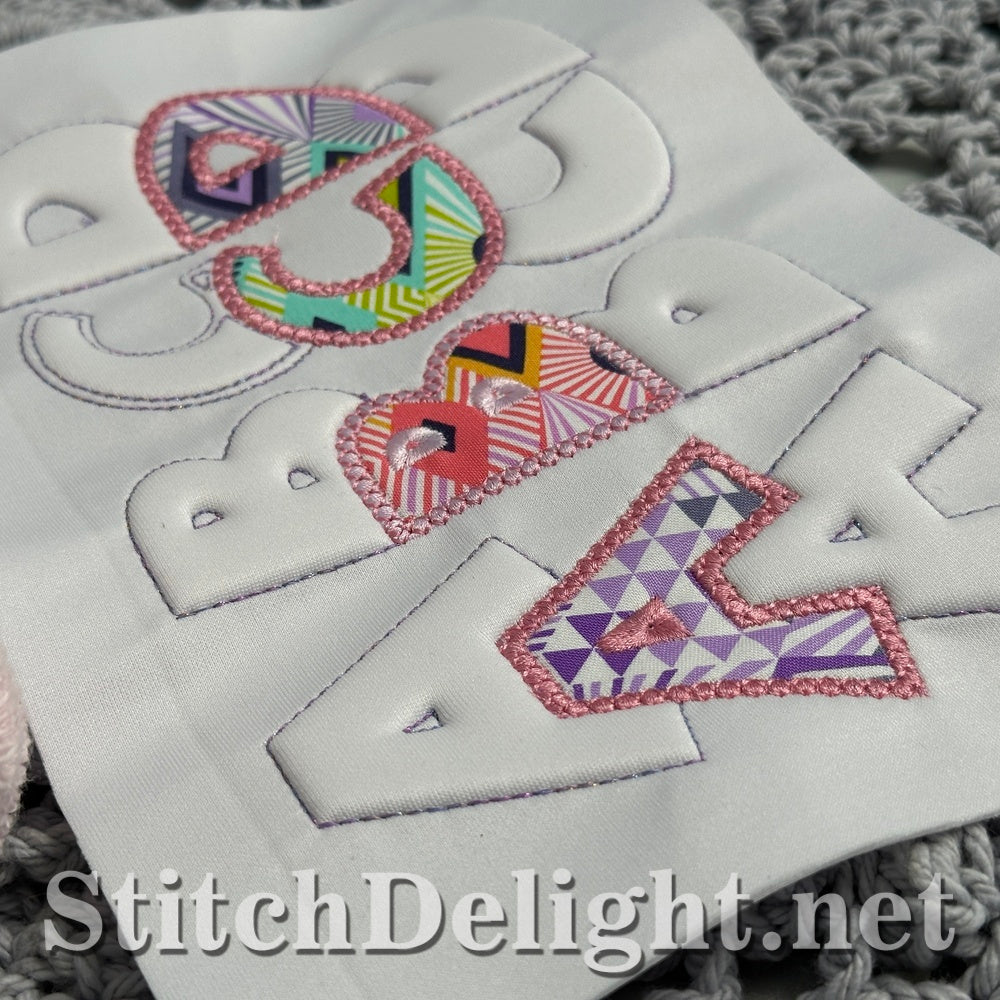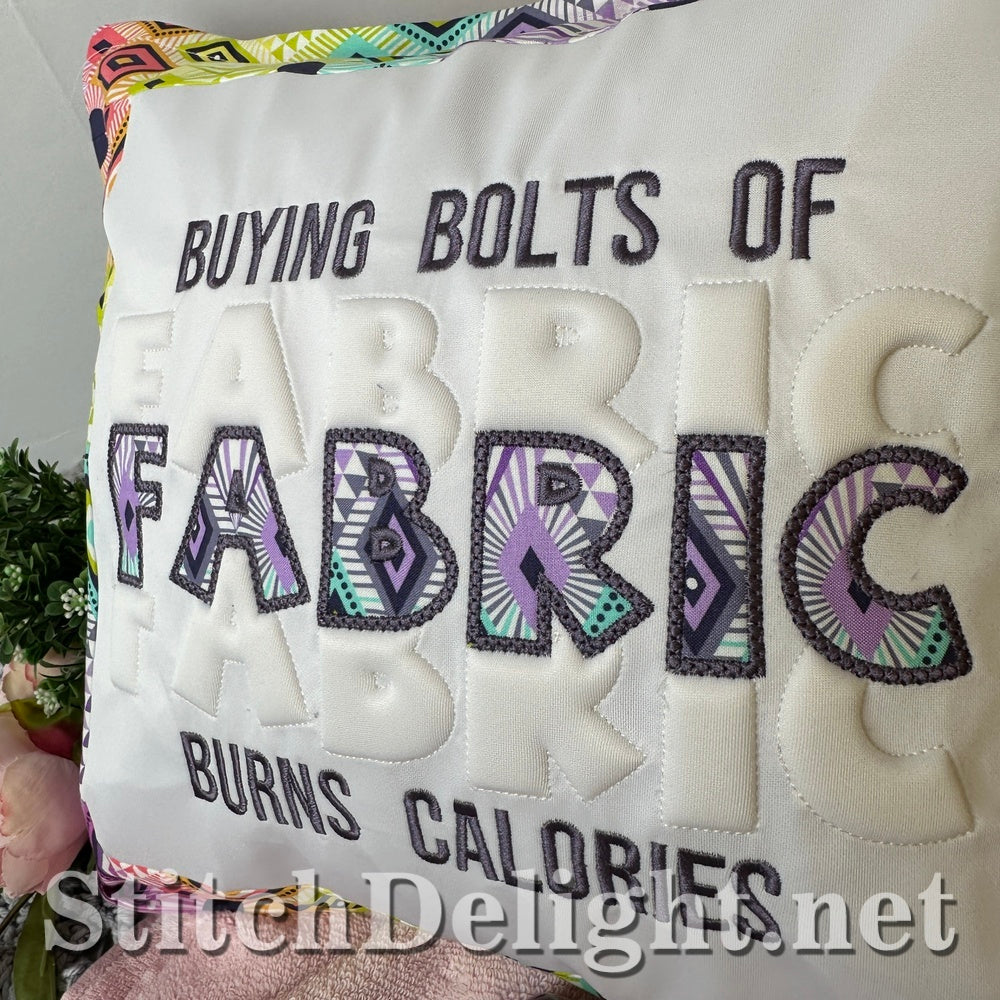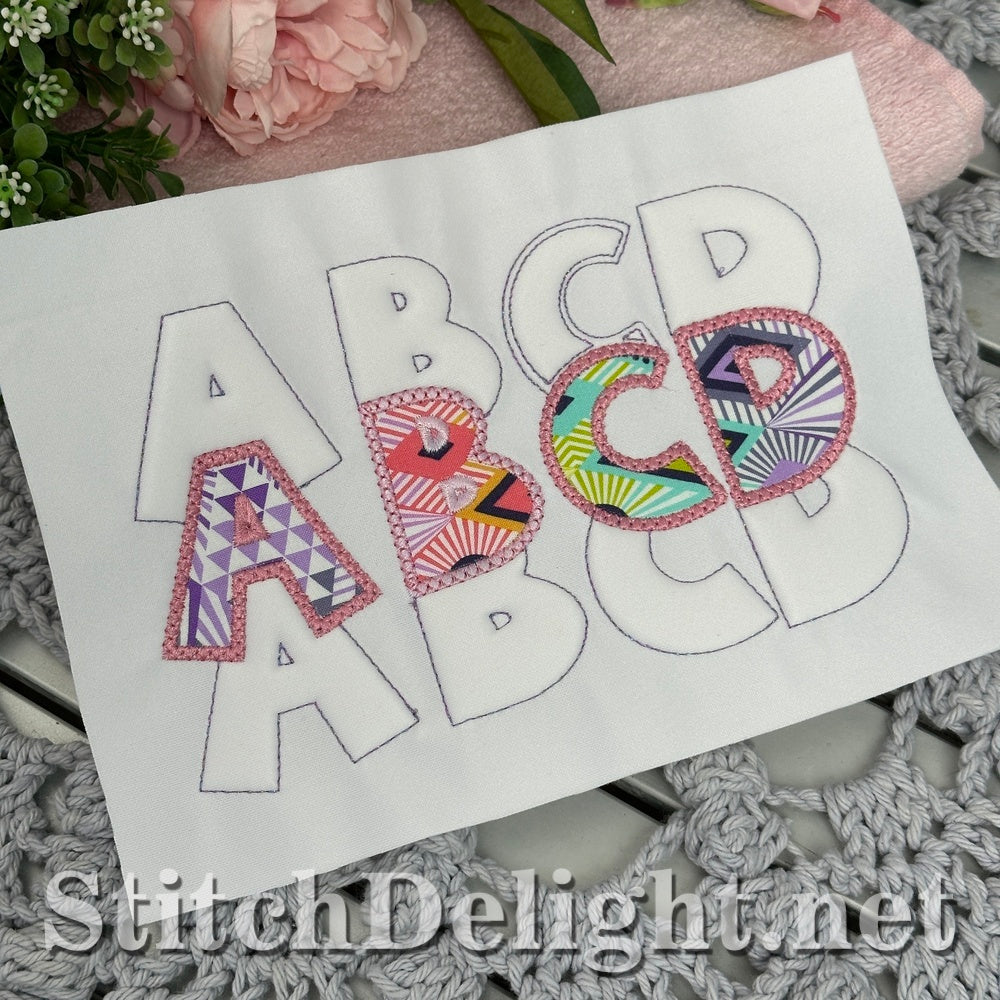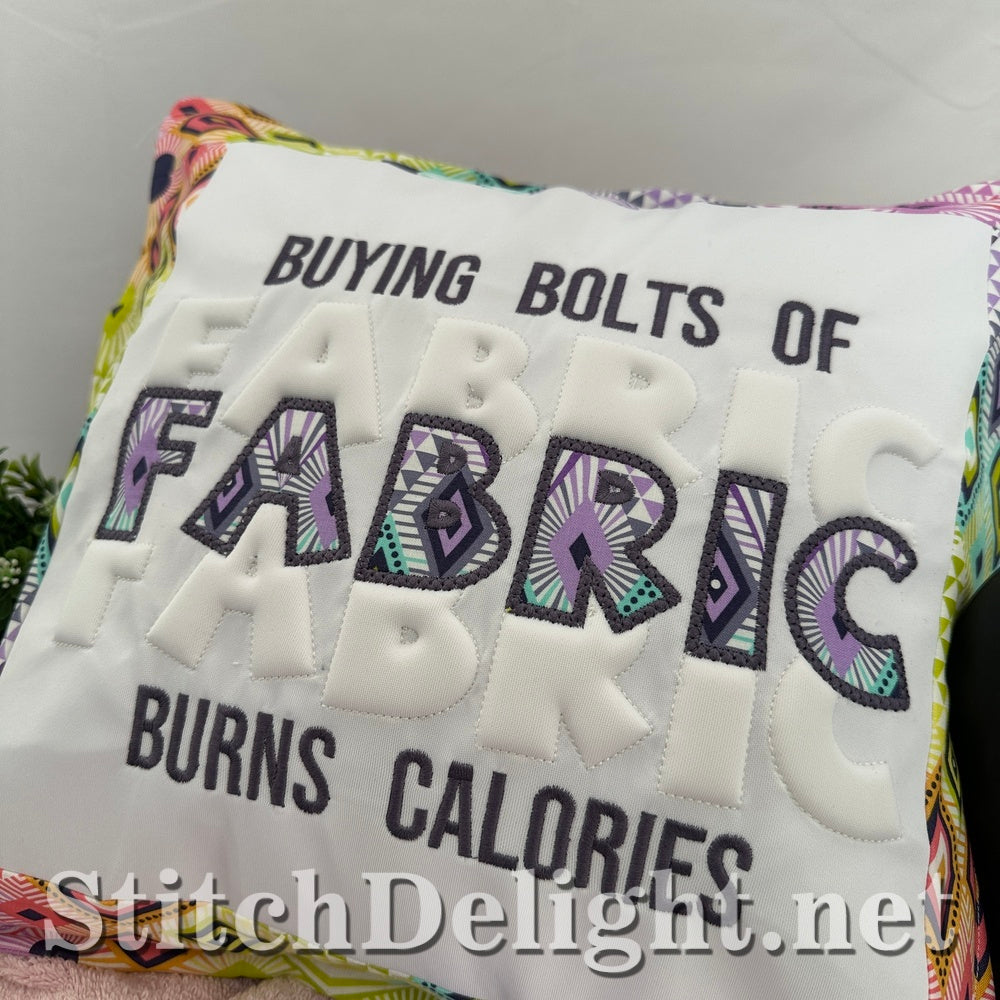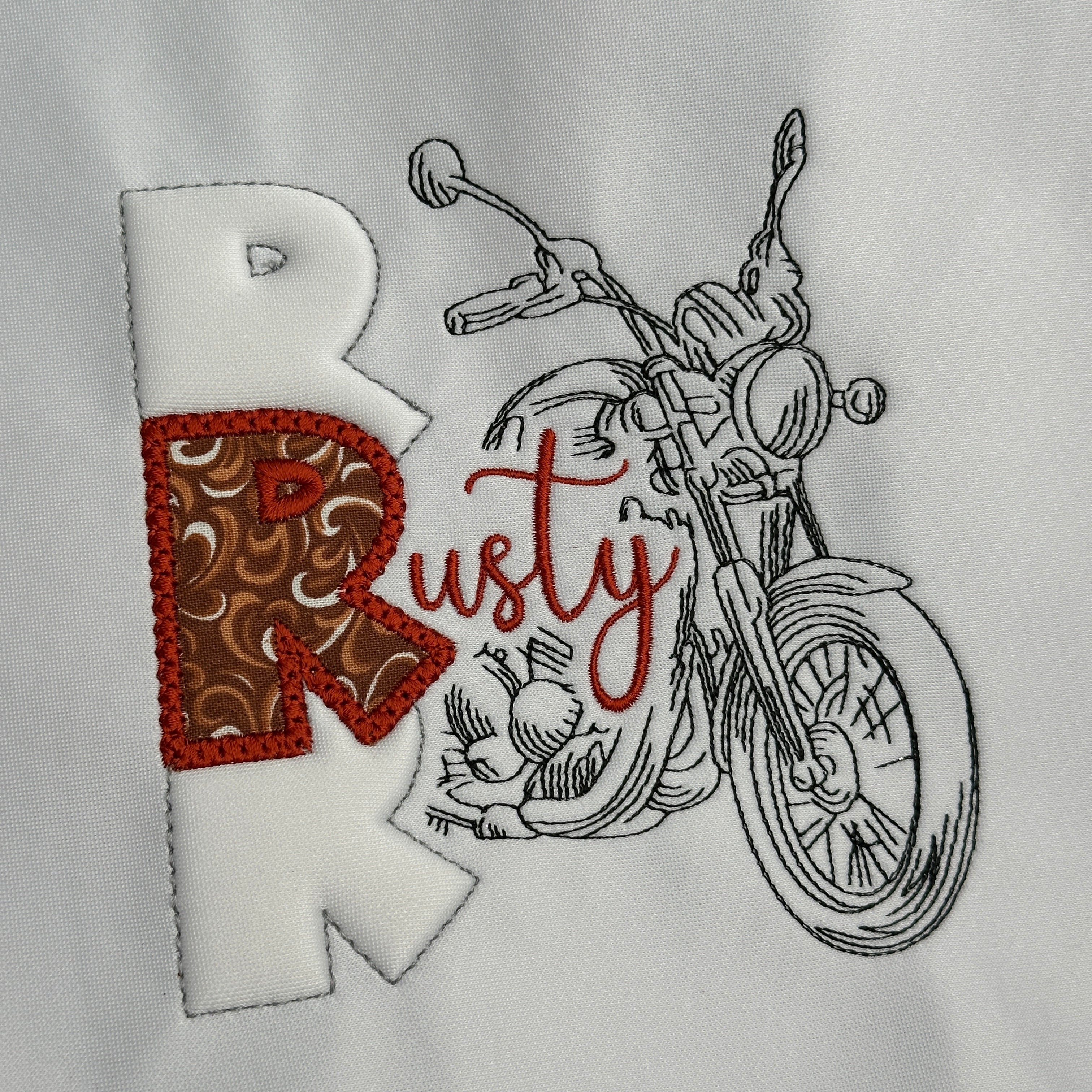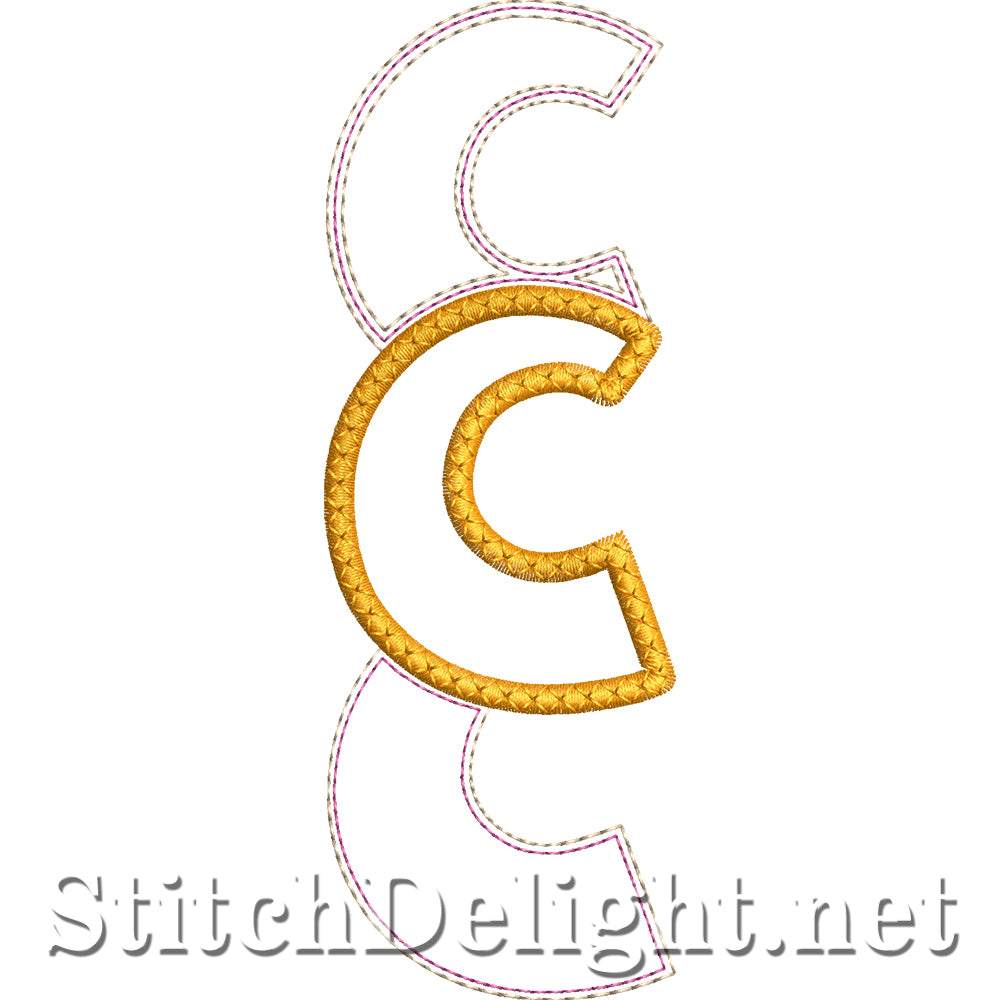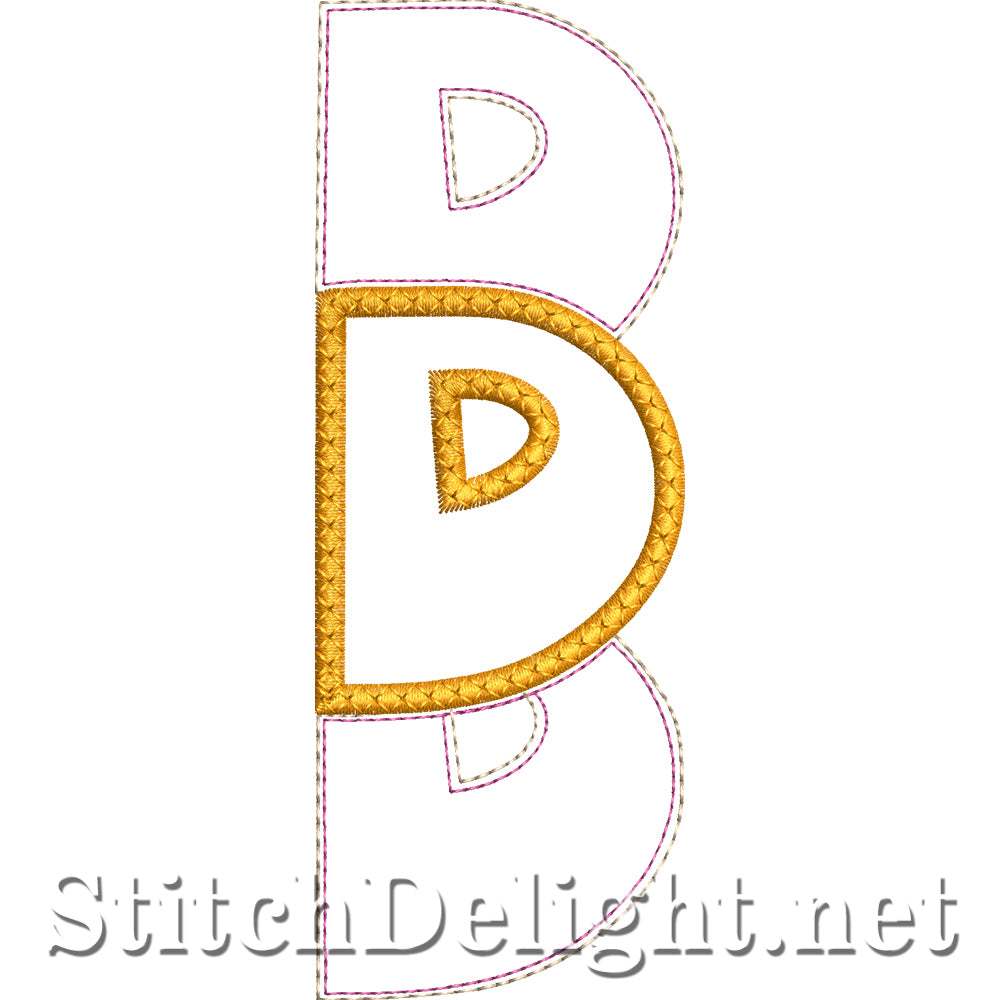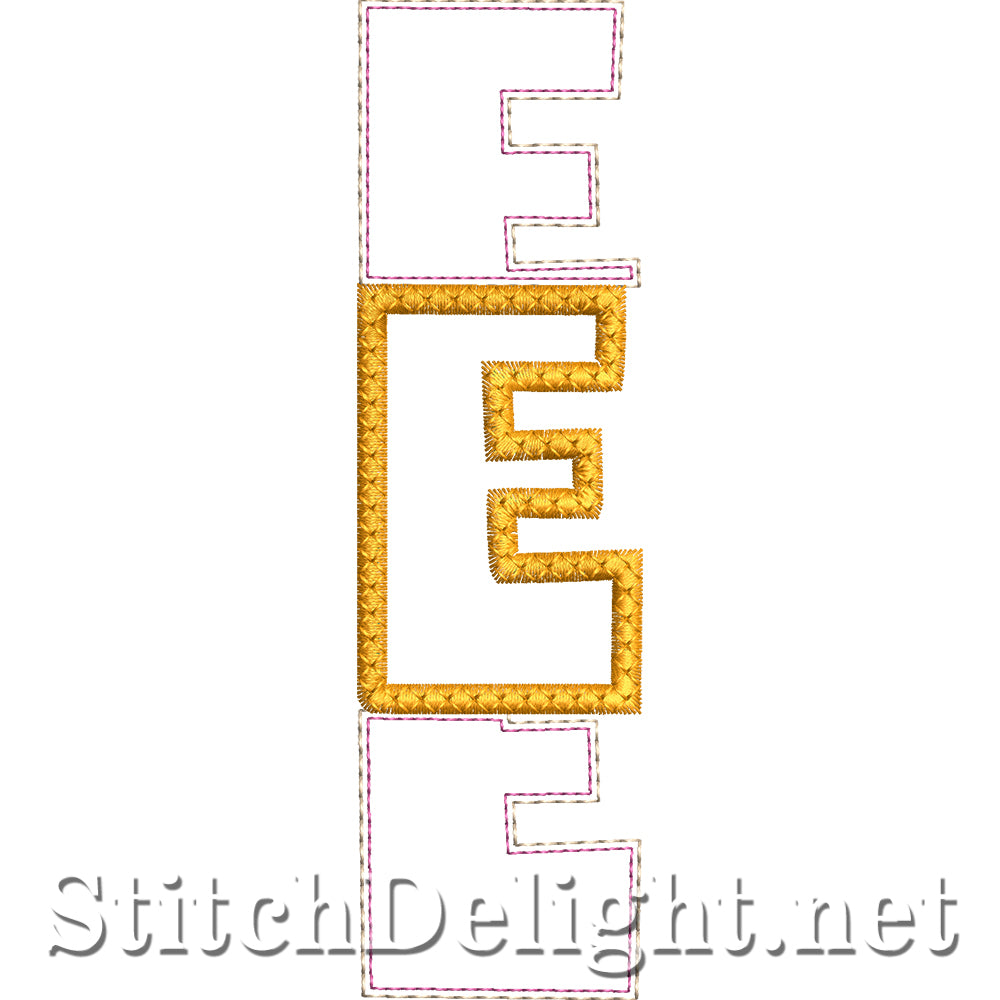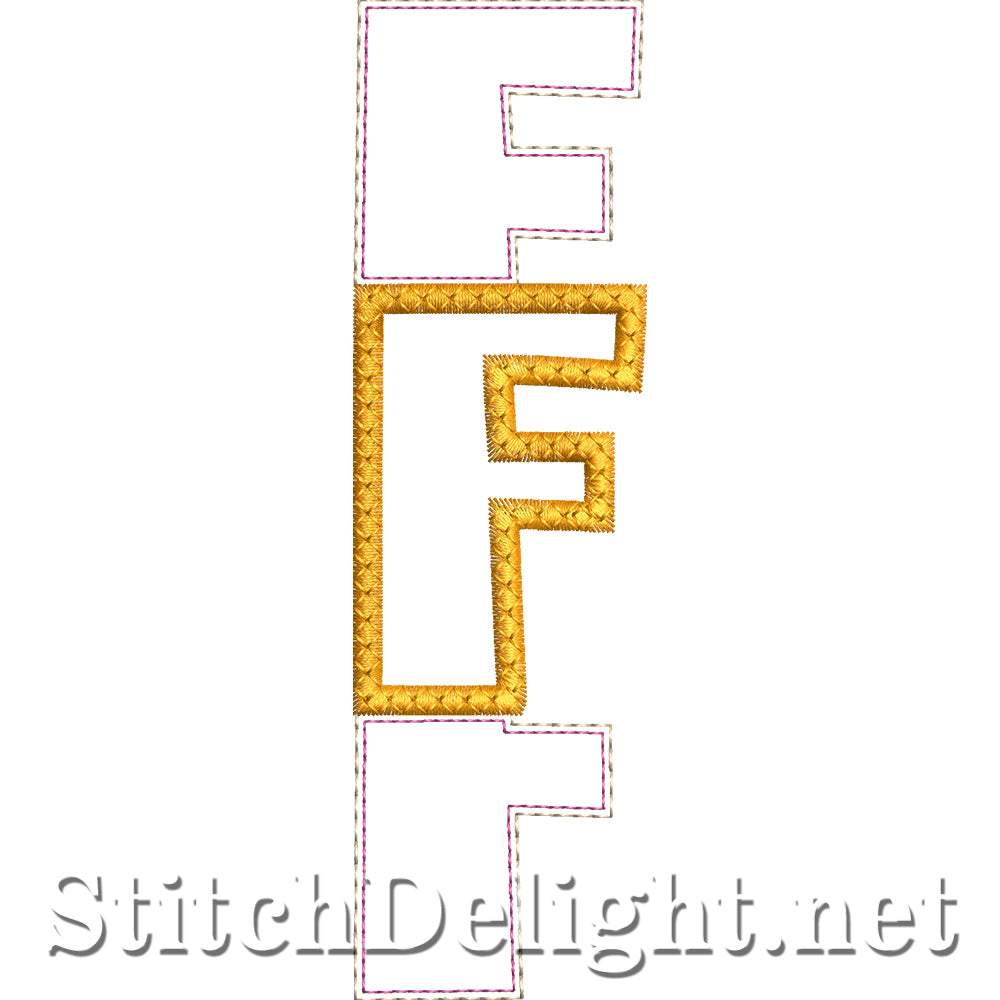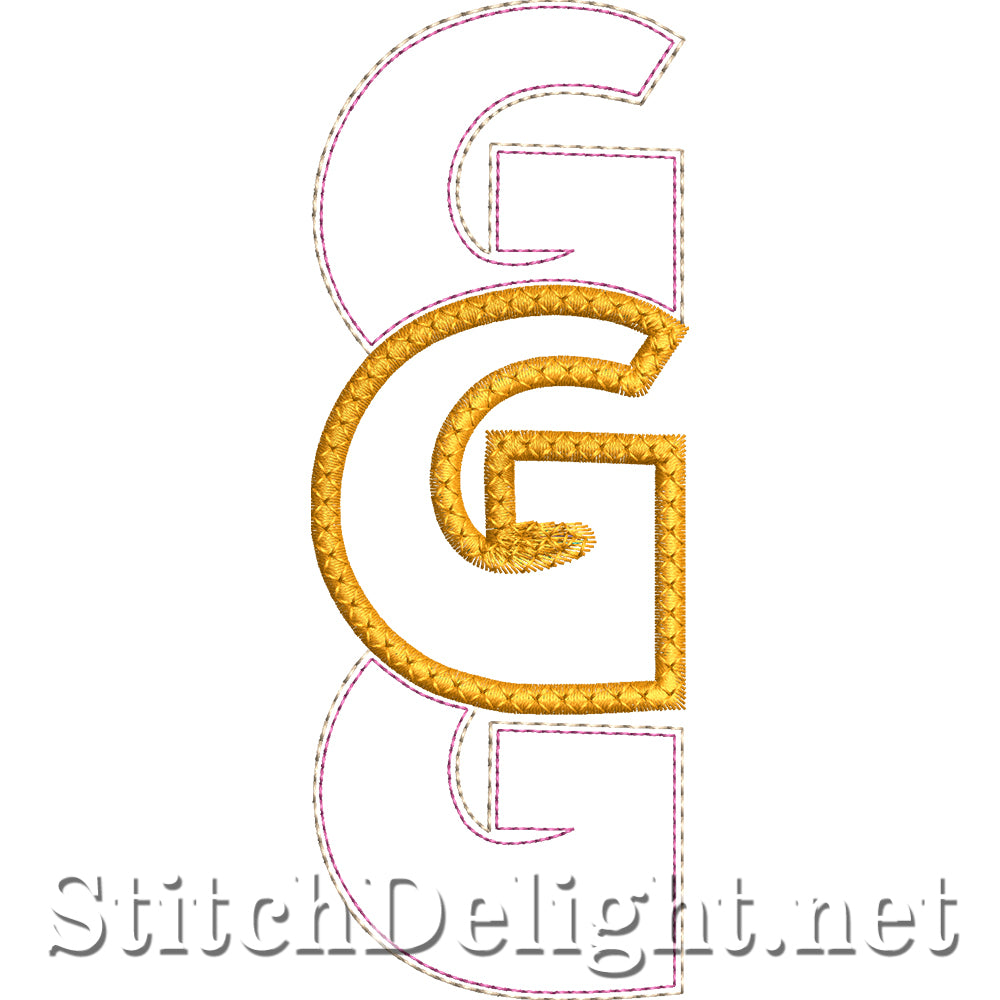
A beautiful unique font using either embroidery / craft foam or batting to create a stunning loft, stacked for interest. 5x7 hoop required with full step by step photo instructions.